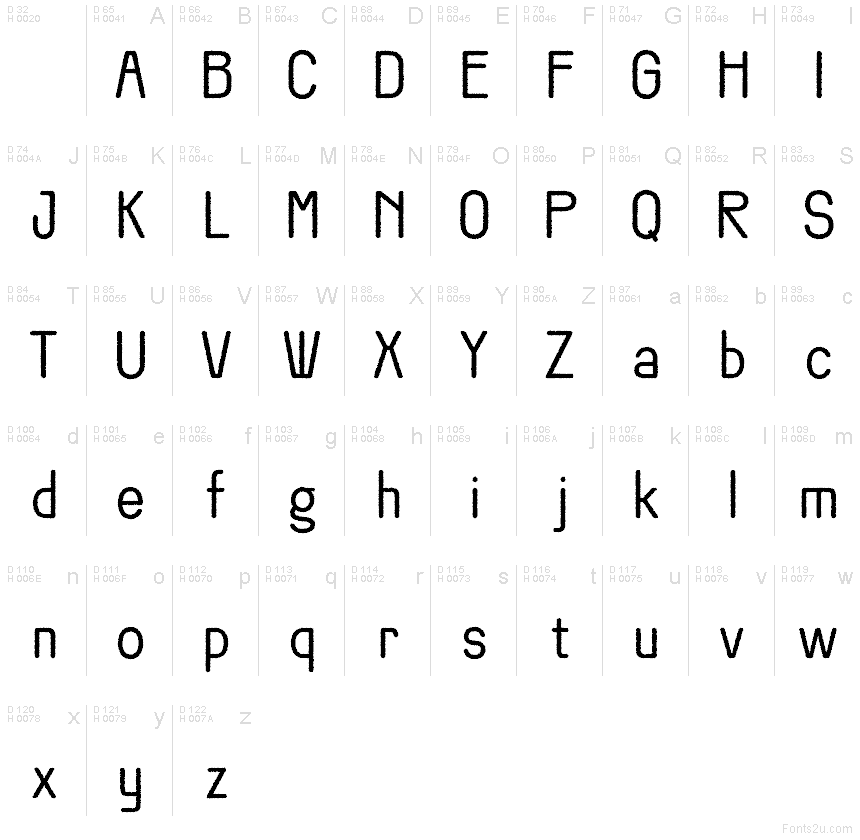
RemondRoundedRough-Regular Demo
Remond Rounded Rough font by Craft Supply Co. is a free regular eroded display font in the Remond family. It stands out with softly rounded forms coated in a grainy, sandpaper texture—like a well-worn rubber stamp. The rhythm stays steady and readable thanks to even counters and generous spacing, while the scuffed edges add warmth and a tactile, handmade pull.
This free font shines on coffee packaging, craft labels, outdoor gear branding, brewery cans, vintage posters, and badges. Use Remond Rounded Rough big so the speckled details breathe, and keep tracking modest to preserve its cozy flow. Pairing tip: match it with a clean, neutral sans to let the rough texture carry the headline.